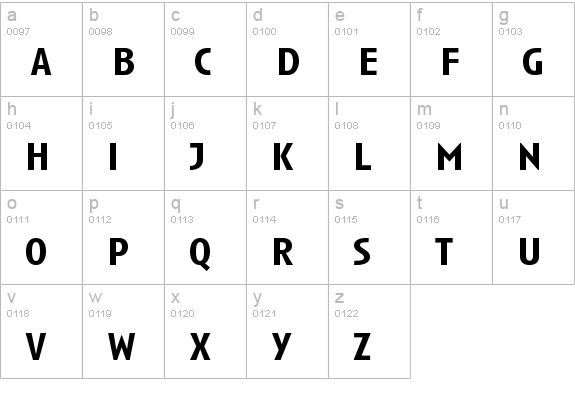
Anisette-Medium is a balanced, medium-weight variant in the Anisette typeface family \xE2\x80\x94 well suited to sub-headlines, navigation, and balanced editorial work.
Anisette-Medium font is a stylish and versatile typeface that exudes elegance and sophistication. With its sleek lines and modern aesthetic, this font is perfect for a wide range of design projects, from branding to editorial design. The medium weight strikes the perfect balance between boldness and readability, making it ideal for both display and body text. And the best part? Anisette-Medium font is available for free download at FontsMarket.com. This means you can easily access this high-quality font for your projects without any cost. Don't miss out on the opportunity to enhance your designs with the timeless appeal of Anisette-Medium font. Download it today and elevate your typography game to the next level.